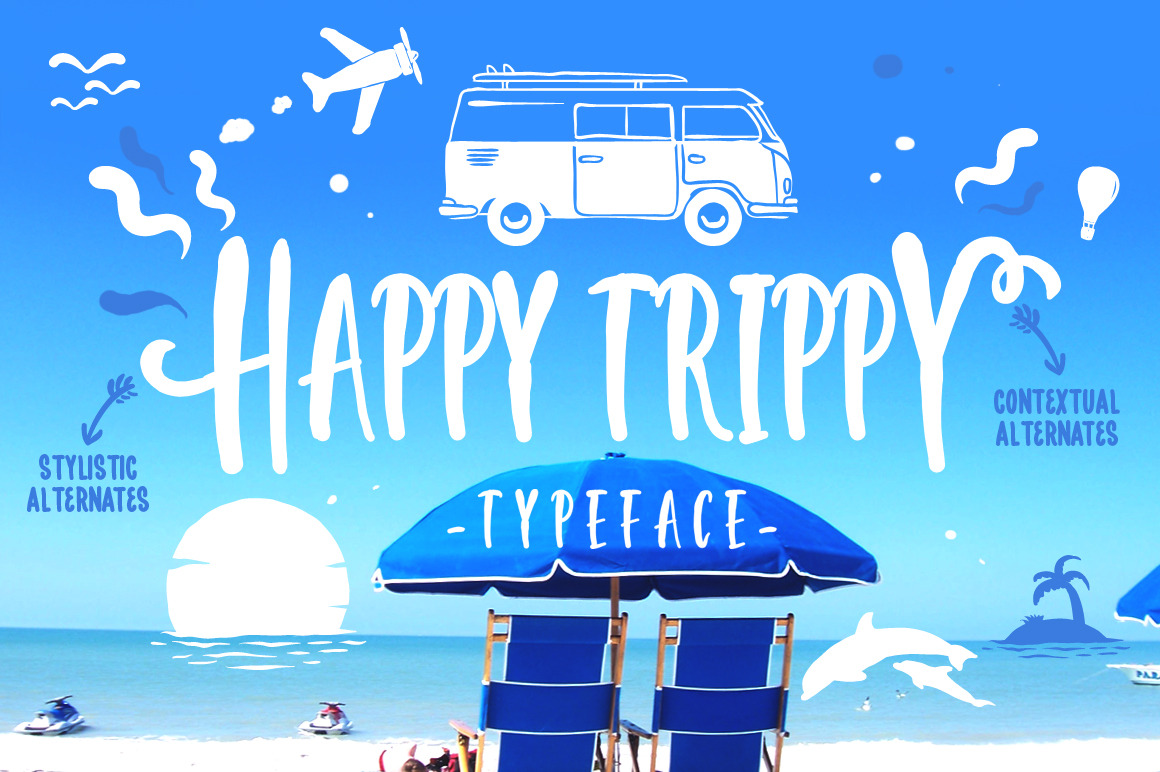
This is how we usually do it: daydream about the place, (finally) choose to book a trip, then we take a leave, enjoy the vacation to the fullest, not forgetting to take pictures here and there, we make memories, but then we need to go back home, go on with our usual lives, and after some time we stumbled upon the pictures of our previous “journey”. Question is, what do you want those memories to make feel or remind you about? It must be a heartwarming, youth-feely, or maybe cheek-blushing feeling, right?
That’s why decorating your pictures with the right font type is important! You won’t want your memoreable trip to give out a blue-gloomy feeling. When you show it to people, you want it to reflect the bright side of you. If you need to share it to your loved ones, you want them to know you are happy that the feeling resonates to make them smile from ear to ear.
So, yeah! The trip can last even after it’s done. How? It depends on how you “package” the memory into a physical form. Based on that, is exactly why we come out with HAPPYTRIPPY typeface! We believe the name has said it all: it is the very perfect Typeface to cherish your trip. Don’t let the good memories fade away, guys!
................. Psssstt! Besides everything mentioned above, this font can also be used in all media purposes such as apparel poster, greeting card, brochure, to enhance the personality of your company. wink wink
- Contextual Alternates